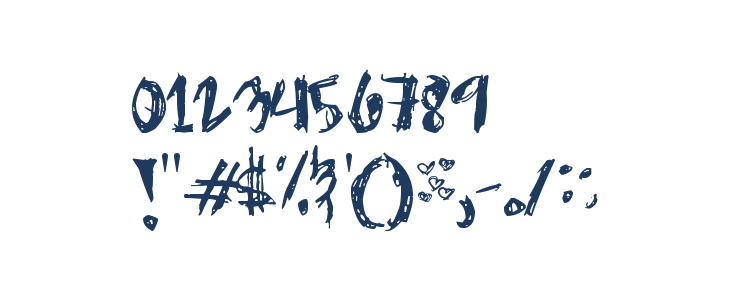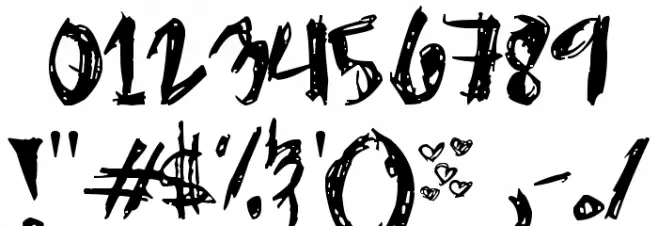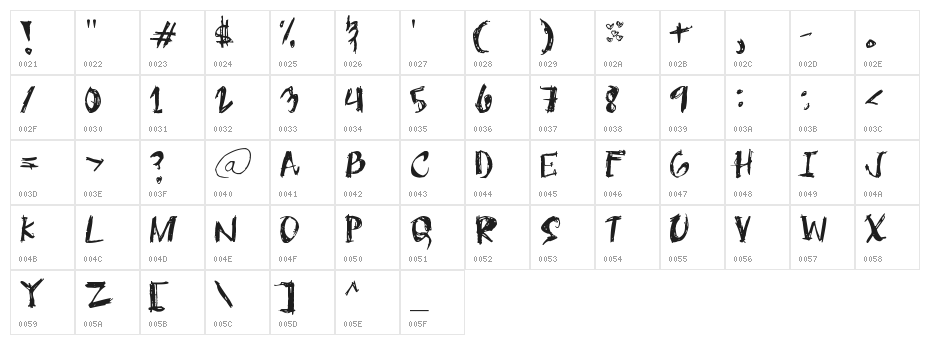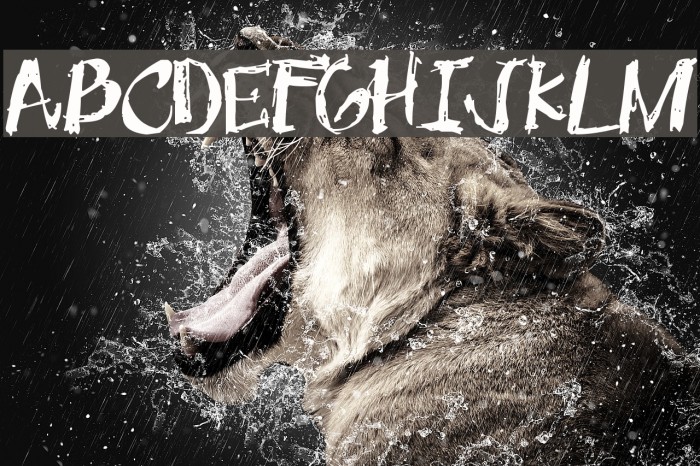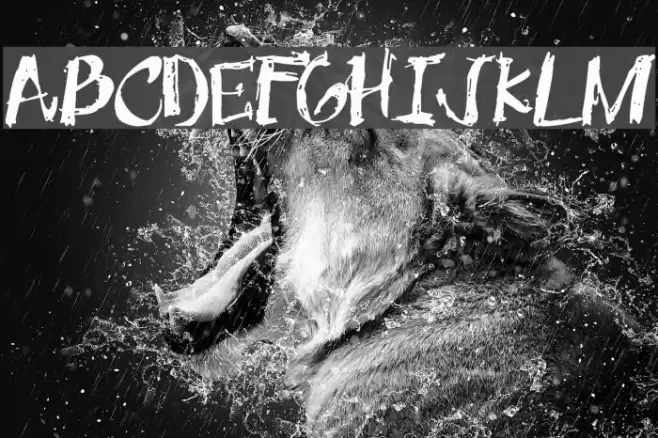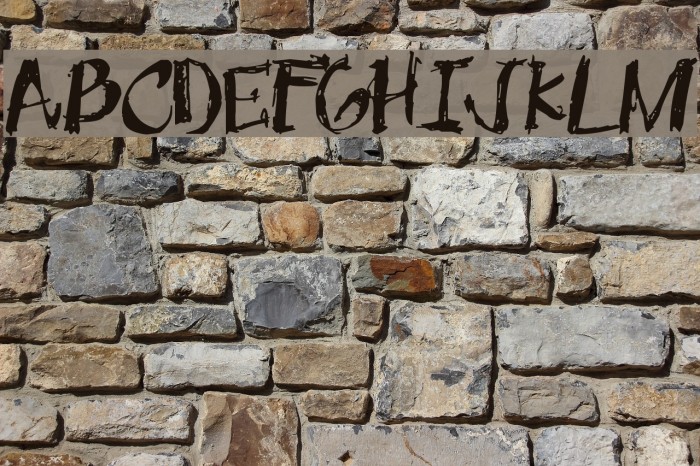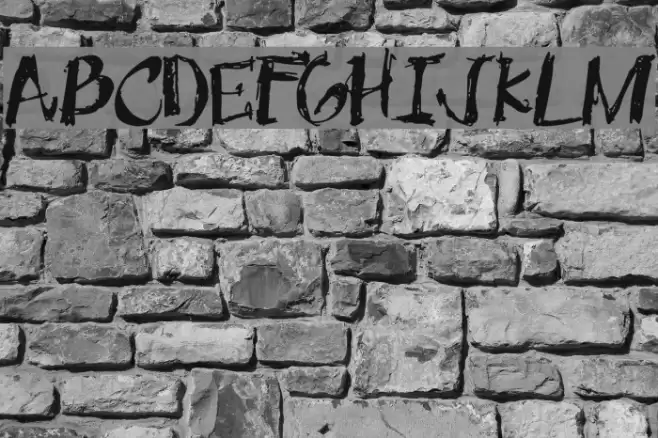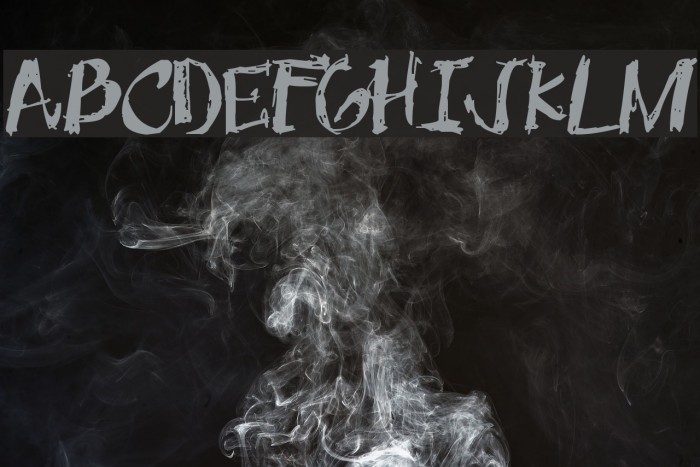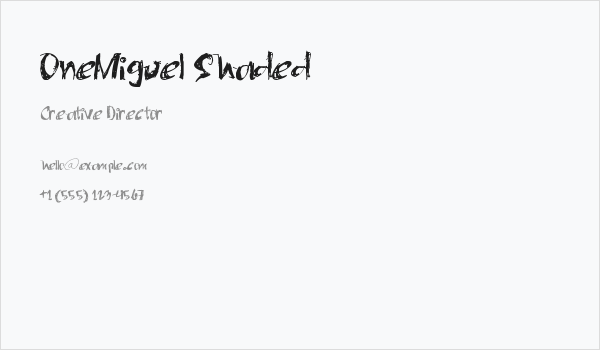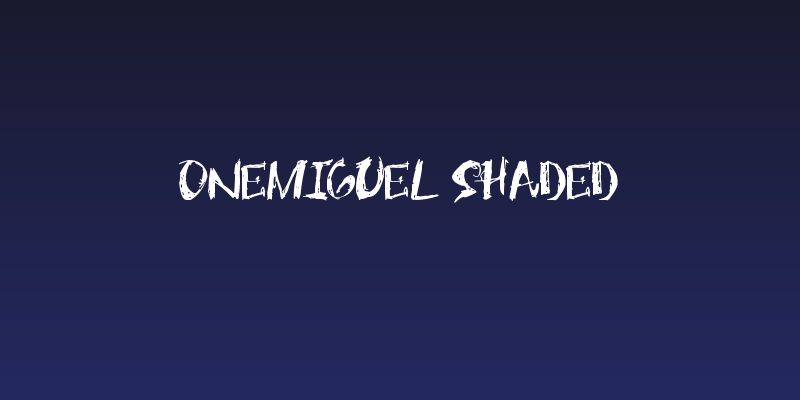
OneMiguel Shaded Font
OneMiguel Shaded Description
This font features a bold, expressive style with a hand-drawn appearance. The characters are irregular and dynamic, with a rough, textured look that gives them a sense of movement and energy. The uppercase and lowercase letters maintain a consistent style, with jagged edges and varying stroke widths that add to the font's unique personality. Numbers and special characters follow the same design principles, ensuring a cohesive look across all glyphs. This font is ideal for projects that require a bold, artistic touch, such as posters, album covers, or creative branding.
| Proposed Projects | Ideal for posters, album covers, creative branding, and artistic projects. |